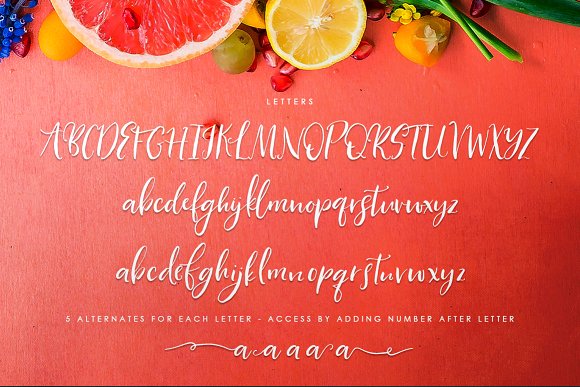
In a world where fonts speak louder than words, Lofrillo Font emerges as a masterpiece, a symphony of elegance and creativity, ready to transform your designs into breathtaking masterpieces. This script font, meticulously crafted by Creativeqube Design, is more than just a collection of letters; it's an artistic expression, a poignant whisper of emotions, and a powerful tool to ignite your imagination.
Prepare to be captivated by the beauty of Lofrillo, a font that dances across the page with its graceful curves and sweeping strokes. Its delicate serifs, like whispered secrets, add an air of sophistication and charm, while its carefully balanced proportions create a harmonious rhythm that draws the eye and captivates the senses.
With Lofrillo, you'll discover a font that's as versatile as it is beautiful. Whether you're crafting elegant invitations, sophisticated logos, or captivating social media graphics, Lofrillo adapts effortlessly, becoming a seamless extension of your creative vision. Its ability to blend seamlessly with other fonts makes it a perfect choice for layered designs, where it adds depth and texture without overpowering the overall aesthetic.
Unleash the power of Lofrillo and watch as your designs come alive with a touch of magic. Its handwritten quality evokes a sense of intimacy and authenticity, making it ideal for personal branding, heartfelt letters, or any project where you want to connect with your audience on a deeper level.
Lofrillo is more than just a font; it's a gateway to a world of creative possibilities. Its elegant style and versatility make it a must-have for any designer or creative professional seeking to leave a lasting impression. Embrace the beauty of Lofrillo and let your imagination soar to new heights.